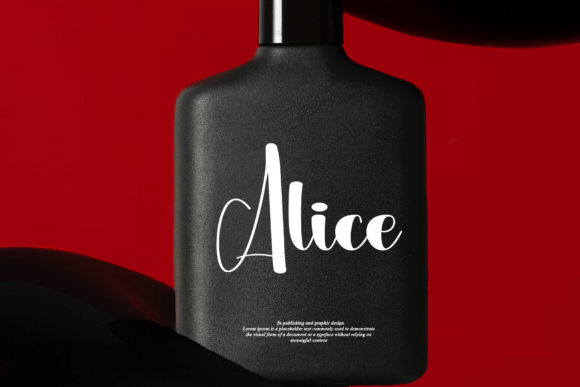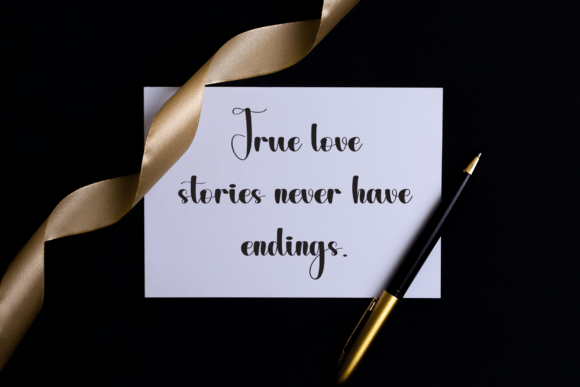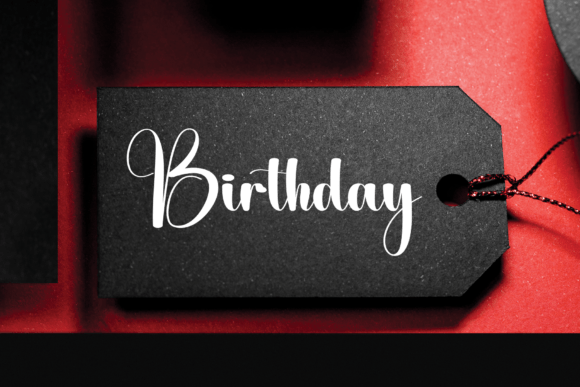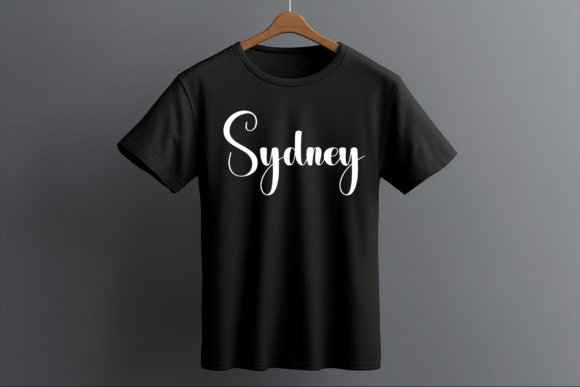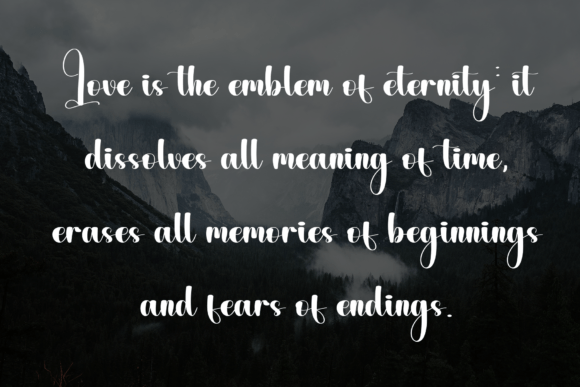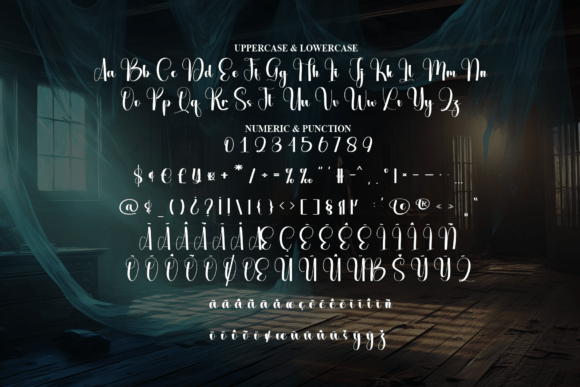
Unveiling the Elegance of Haunted Font: A Stylish Script for Modern Designs
In the realm of typography, few fonts manage to strike a balance between elegance and modernity as effectively as Haunted. This stylish script font has been gaining attention for its unique blend of traditional calligraphy and contemporary design elements. With its graceful strokes, fluid curves, and meticulously crafted letterforms, Haunted brings a touch of sophistication to any design project.
The Essence of Haunted Font
Haunted is more than just a font; it’s an expression of modern calligraphy with a refined edge. Its design is inspired by the beauty of hand-drawn calligraphy but infused with a modern twist that makes it versatile and fresh. Each letterform is carefully crafted to ensure that the font flows naturally, making it perfect for a wide range of applications, from luxurious logos and elegant invitations to compelling packaging and engaging social media graphics.
Key Features of Haunted Font
- Fluid Curves and Graceful Strokes: The fluidity of Haunted’s curves and the elegance of its strokes give it a dynamic and sophisticated feel. These features ensure that the font stands out in any design, adding a level of refinement that’s hard to achieve with more basic typefaces.
- Contemporary Charm: While Haunted pays homage to traditional calligraphy, it does so with a distinctly modern approach. This blend of old and new makes it an excellent choice for designers looking to create works that are both timeless and current.
- Versatility: One of the key advantages of Haunted is its versatility. It can be used in a variety of design projects, from high-end branding and advertising to more personal applications like wedding invitations and DIY crafts.
- Polished Details: The attention to detail in Haunted’s design ensures that it looks polished and professional, even at smaller sizes. This makes it an excellent choice for designs that require a high level of legibility without sacrificing style.
Applications of Haunted Font
The applications of Haunted are as varied as its features. Here are some of the most popular uses for this versatile font:
- Logo Design: For businesses looking to establish a sophisticated brand identity, Haunted offers a stylish solution. Its unique letterforms and elegant flow make for memorable logos that stand out.
- Invitations and Stationery: Whether it’s a wedding invitation, a birthday party invite, or professional stationery, Haunted adds a touch of class and elegance that’s sure to impress.
- Packaging Design: For products that want to convey a sense of luxury or premium quality, Haunted can be used to create eye-catching packaging that also communicates the brand’s values.
- Social Media Graphics: In the digital age, standing out on social media is crucial. Haunted can be used to create engaging graphics, stories, and posts that capture attention and reflect a brand’s or individual’s sophisticated side.
To make the most out of Haunted, consider the following tips:
- Experiment with Sizes: While Haunted looks great at larger sizes, don’t be afraid to experiment with smaller sizes to see how it can add a subtle touch of elegance to your designs.
- Play with Colors: The right color choice can dramatically change the feel of Haunted. Experiment with different colors to see how they impact the overall mood of your design.
- Combine with Other Fonts: For added versatility, try pairing Haunted with complementary fonts. This can create interesting contrasts and add depth to your designs.
- Embrace White Space: Don’t be afraid of white space. Allowing Haunted’s elegant letterforms to breathe can enhance its impact and make your designs more readable and visually appealing.
Haunted font is a stylish and versatile script that brings a touch of elegance and modernity to any design project. With its fluid curves, graceful strokes, and contemporary charm, it’s an excellent choice for designers and crafters looking to add a sophisticated element to their work. Whether you’re creating a logo, invitation, packaging, or social media graphics, Haunted offers the perfect blend of style and functionality.
As you explore the possibilities with Haunted, you’ll discover why it’s becoming a favorite among designers. Its ability to convey a sense of luxury, paired with its natural flow and polished details, makes it a valuable addition to any design toolkit. So, dive into the world of Haunted and let its elegance transform your designs into something truly special.